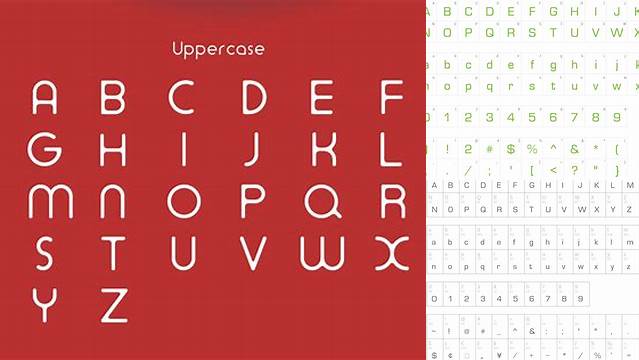
What is the Iris Font?
Firstly, let's clarify what the Iris font actually is. The Iris font is a modern and versatile typeface known for its clean lines and readability. Its design makes it suitable for various applications, from headlines to body text. The font often carries a sense of elegance and simplicity, making it a favorite among designers who aim for a contemporary aesthetic. It's not just about a pretty face; the Iris font is also designed with functionality in mind. Its clear letterforms ensure that the text remains legible across different sizes and on various mediums, which makes it great for both print and digital projects. The design of the Iris font often leans towards a minimalistic approach, which is great for modern designs. This minimalism allows the font to blend seamlessly with a wide variety of design styles and themes without overwhelming the overall visual impact. This blend of style and functionality is what makes the Iris font a versatile tool for any designer. The Iris font embodies simplicity and clarity, characteristics that make it a powerful tool in design. Its understated elegance allows the content to speak for itself, adding a touch of sophistication without sacrificing readability. The Iris font is a powerful tool in a designer's arsenal because of its modern feel. The Iris font's ability to complement a broad spectrum of design styles stems from its elegant design and exceptional legibility.
Beyond its aesthetic appeal, the Iris font is also practical. Its adaptability to different mediums is one of its major strengths. Whether you're designing a website, a brochure, or a social media graphic, the Iris font will perform well. The font family often includes several weights and styles, providing designers with plenty of options to find the perfect fit for their projects. This variety allows you to customize your text to match the specific needs of each design element, enhancing visual harmony and readability. Its versatility enables seamless adaptation across diverse design projects. The font's design ensures that text remains clear and easy to read. Designers and creatives appreciate it due to its ability to maintain visual clarity and aesthetic harmony. It enhances readability and elevates the design's overall appeal through its clean and adaptable nature.